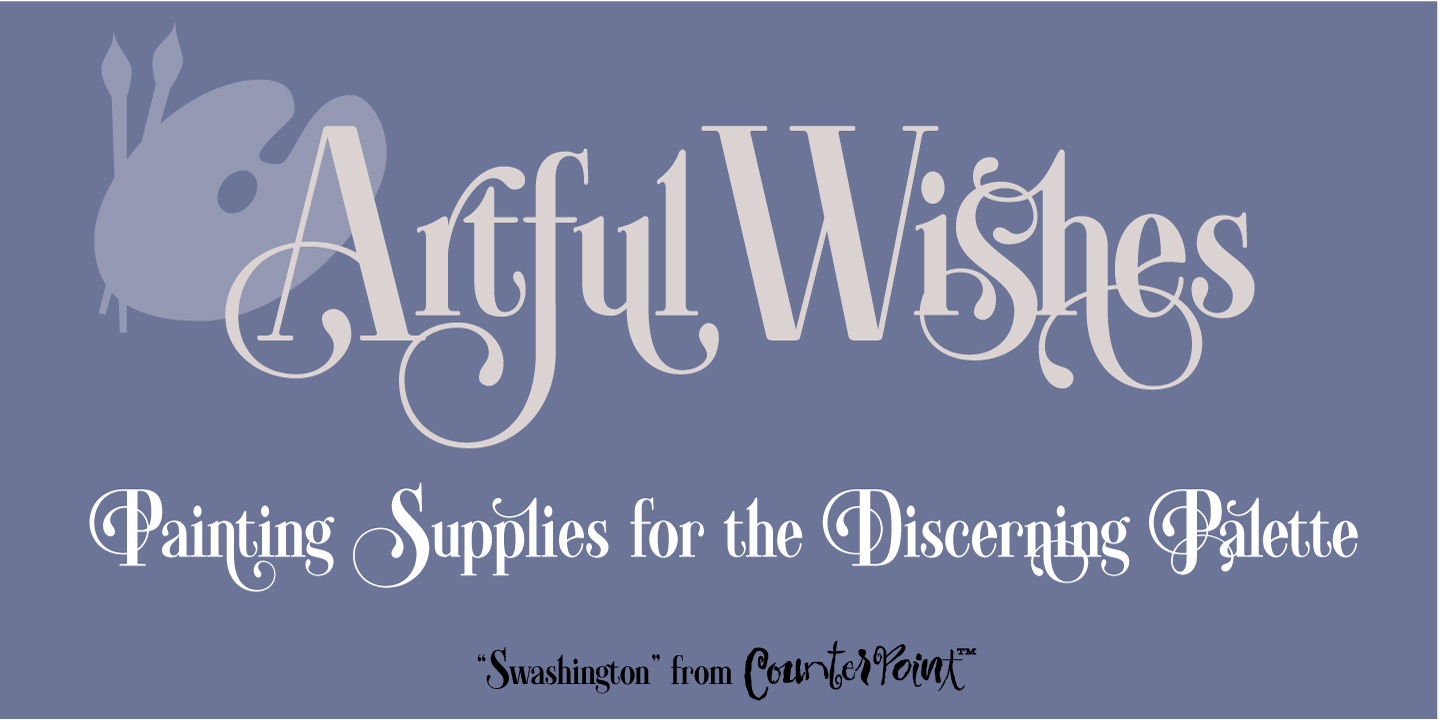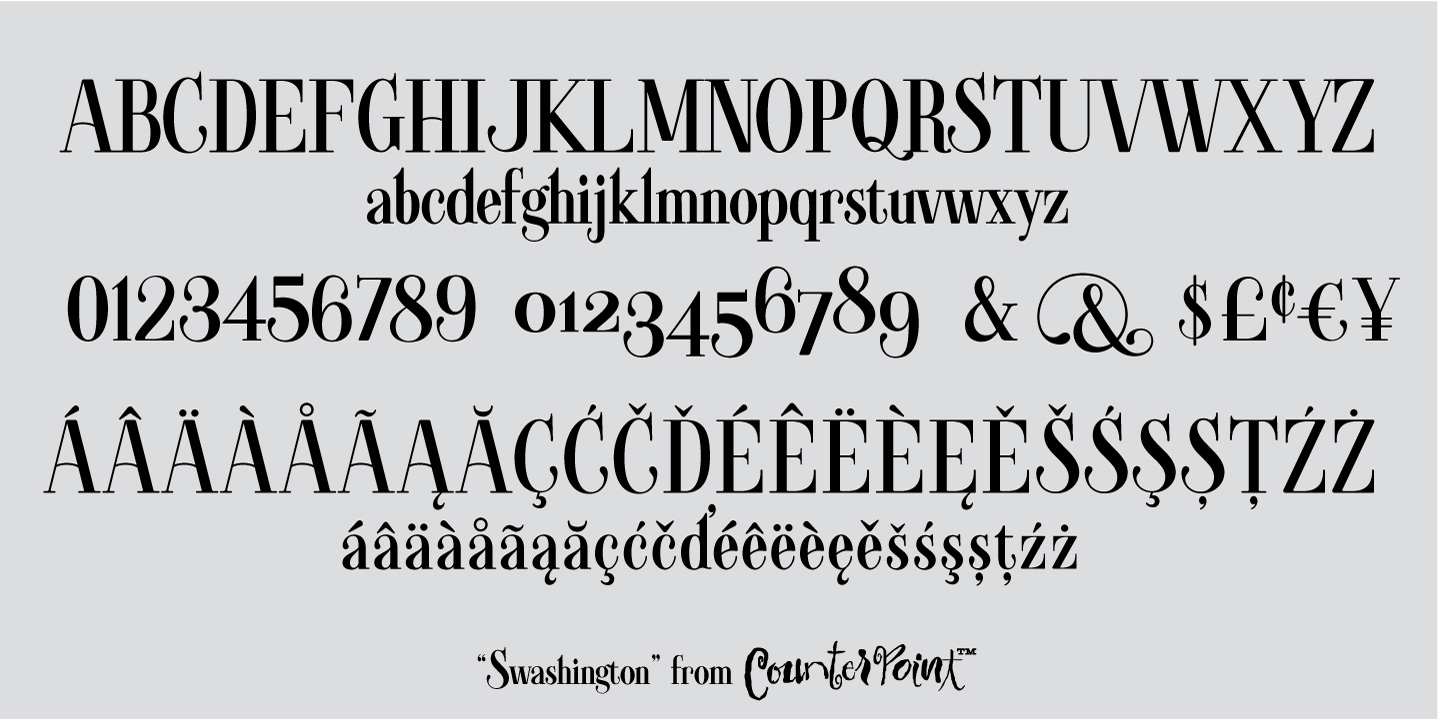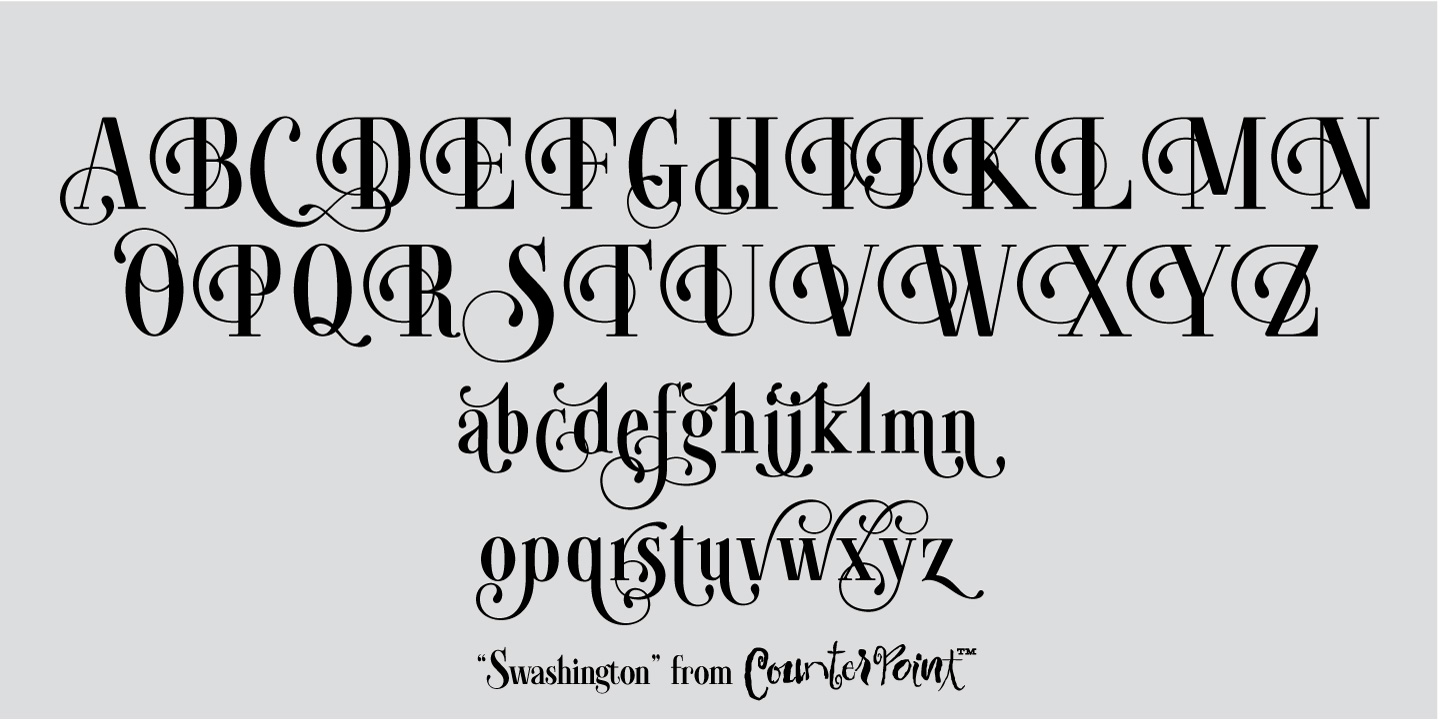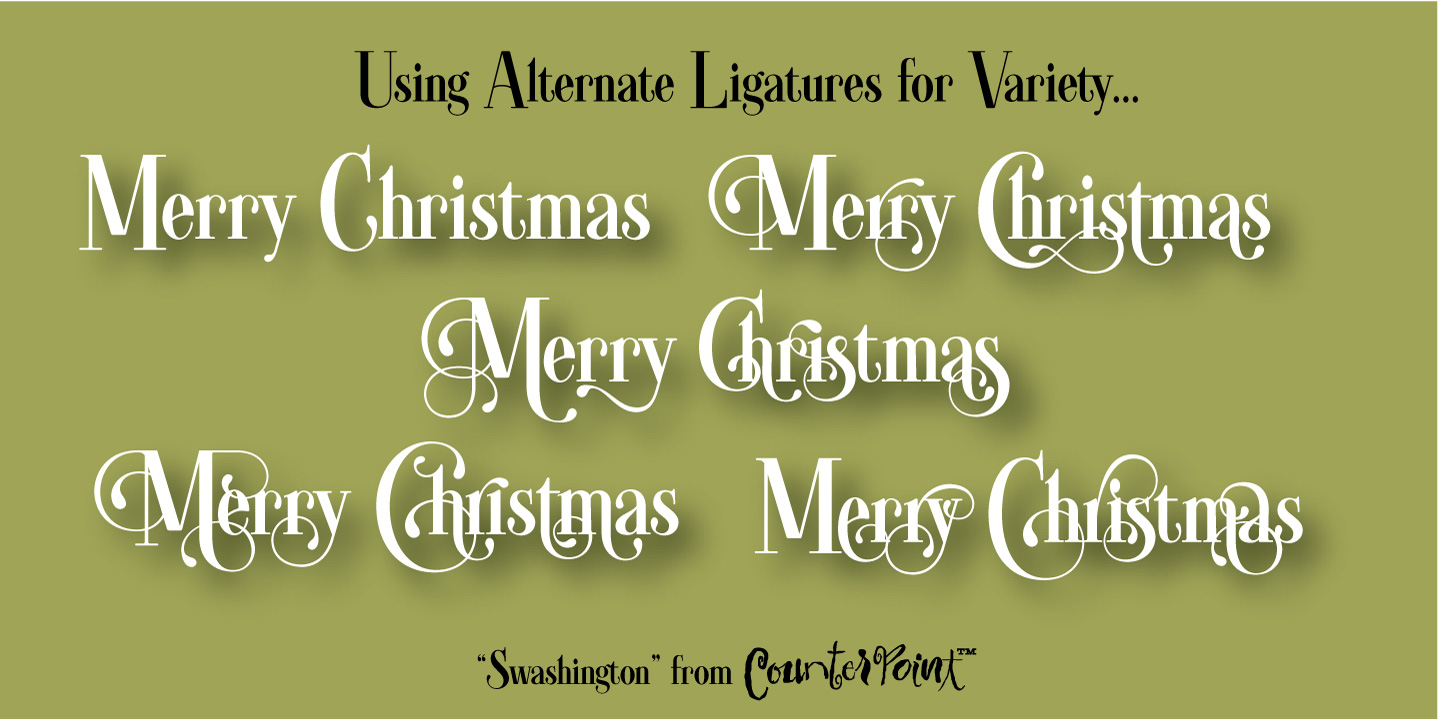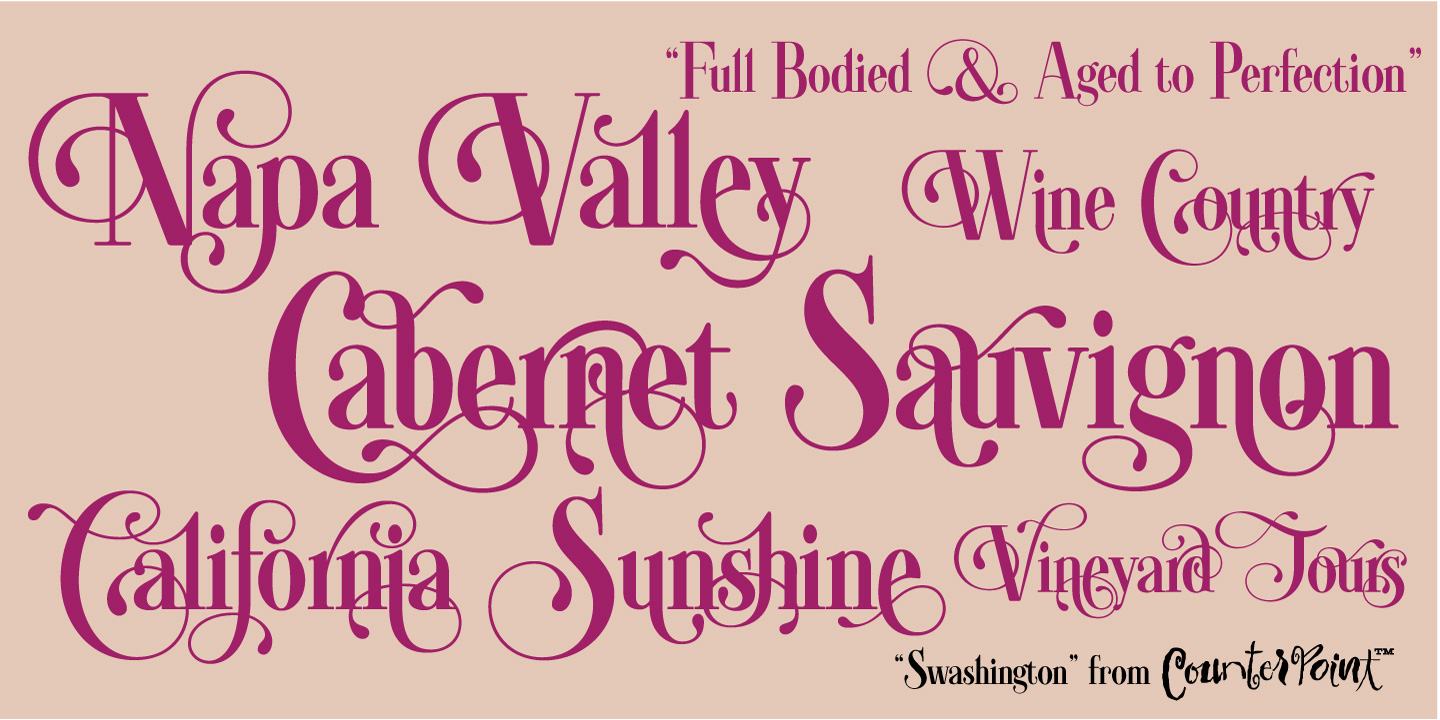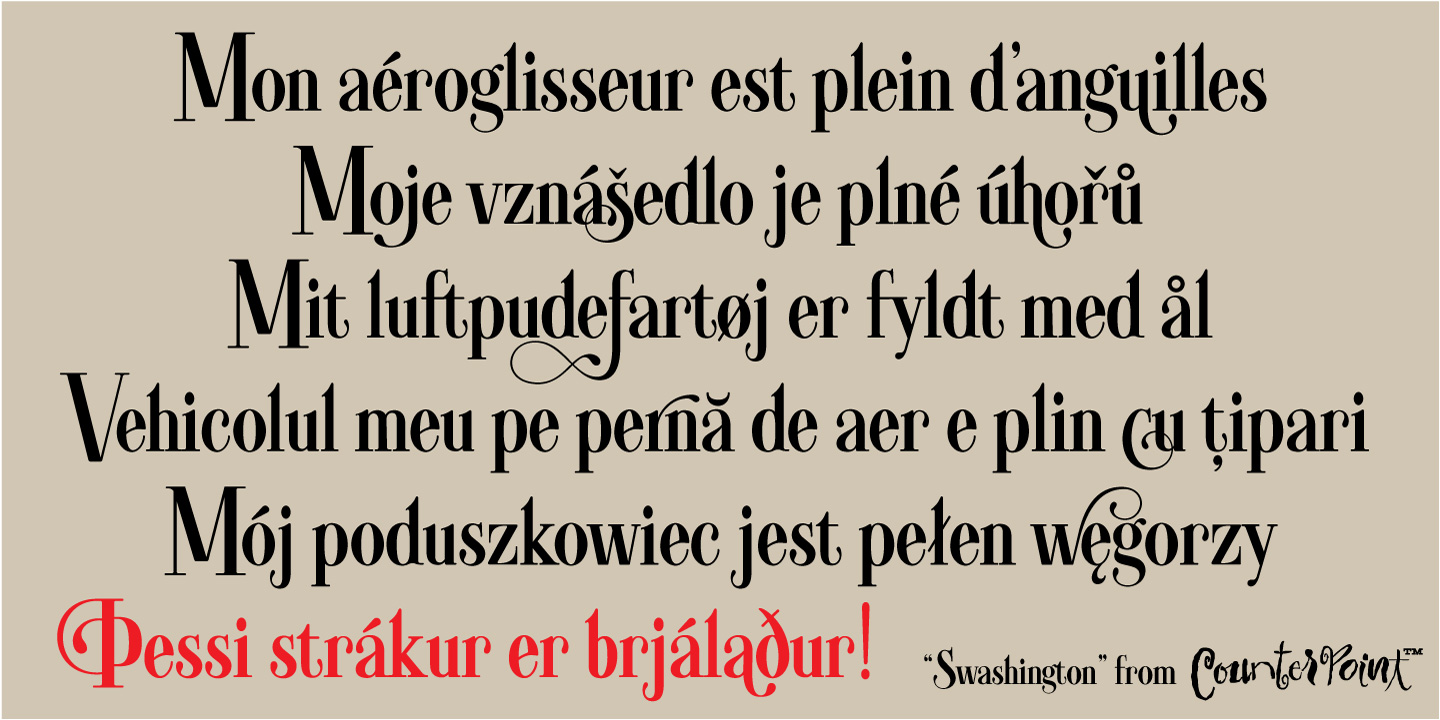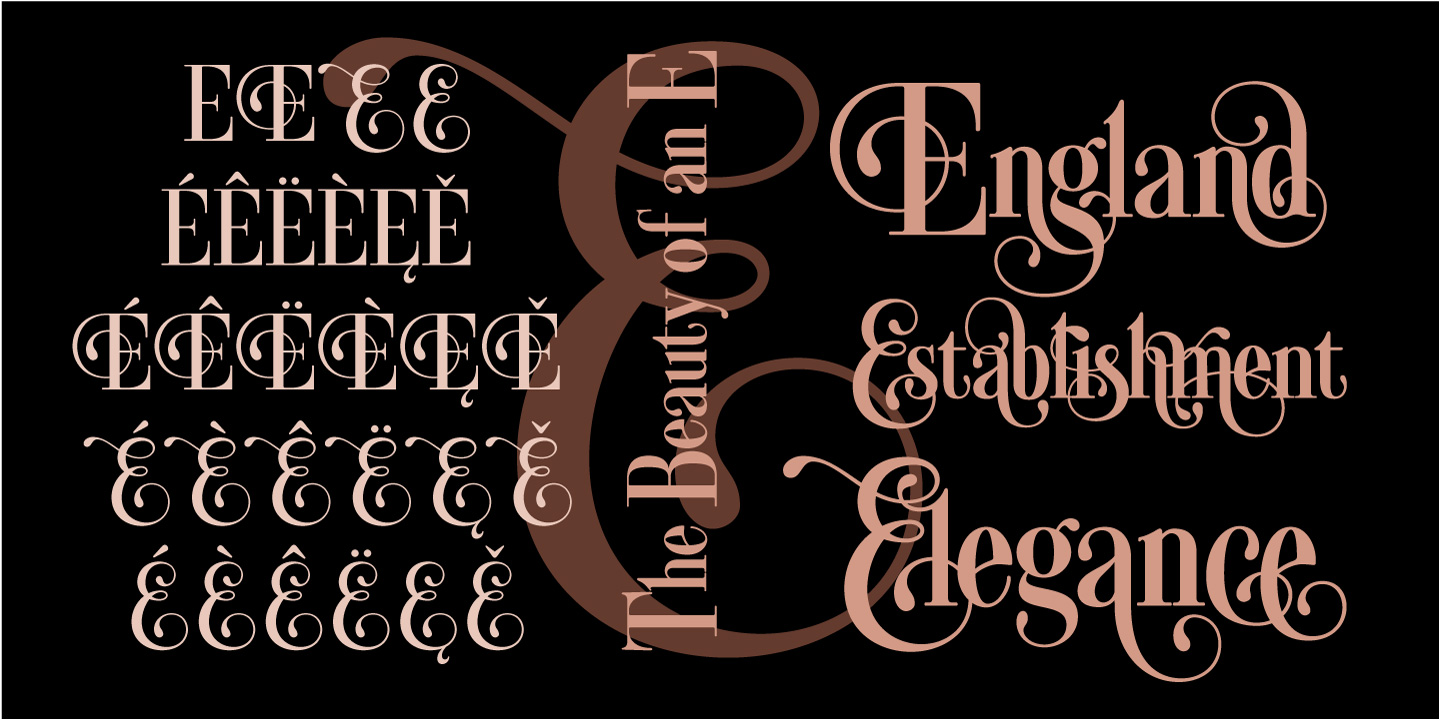
Inspired by a few letters in a hand-drawn logotype, Swashington is a serif font with both an early 20th Century feel and yet is evocative of the swash fonts of the 1970s as well. The real meat of this typeface comes with using all the swash and ligature variants allowing for an enormous amount of typographic flair. Starting with the original logo, Jason Walcott was moved to develop these interesting letterforms into a full typeface with all the swashy might he could muster. In addition to a comprehensive set of Swash and Alternate letters, there are also over 270 Discretionary Ligatures that can be used to create different possibilities by mixing and matching. Included with the downloaded fonts are two .pdf files showing all the swashes and ligatures, that can be printed and used for easy reference. All of the alternates are available via the Glyph Palette or with OpenType features. The font includes support for all Latin based and Eastern European languages.